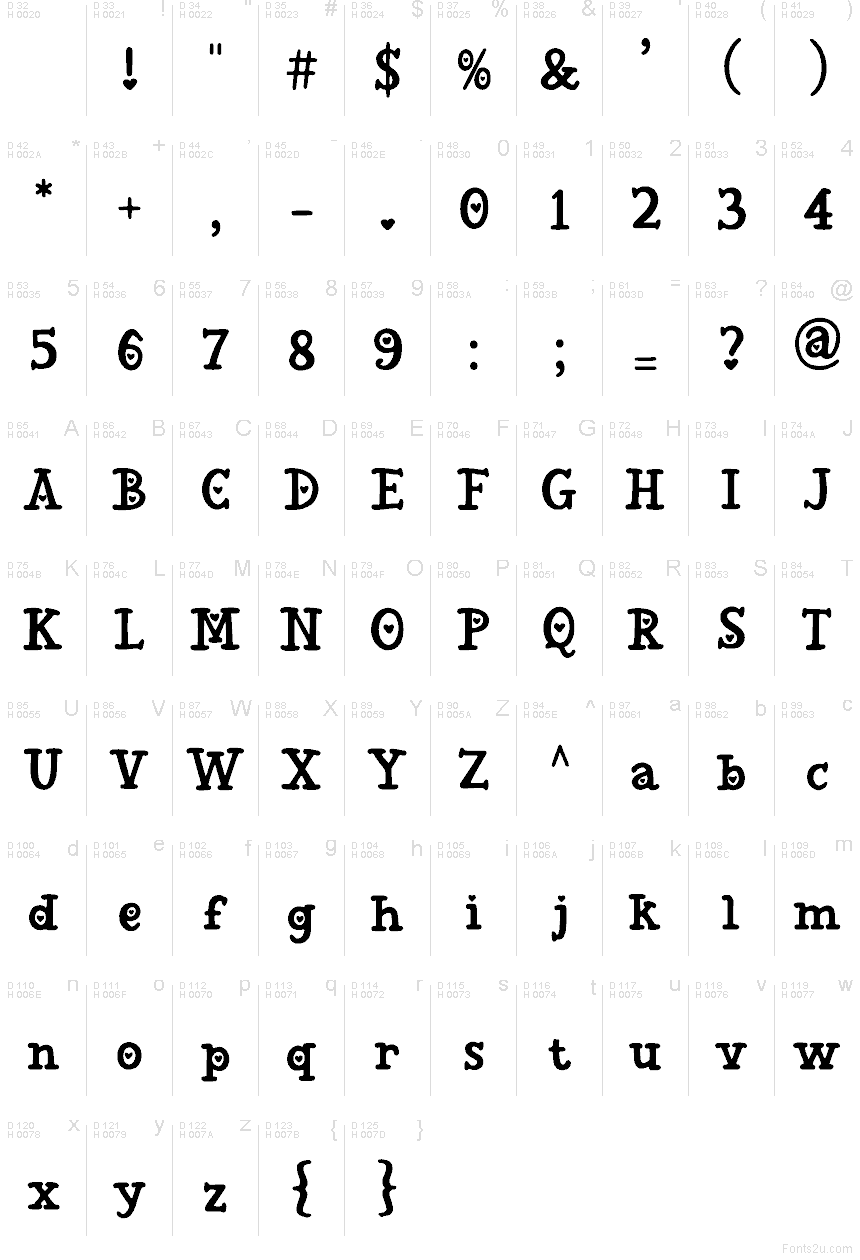
Marias Valentine
Marias Valentine font by David Holm is a free decorative valentine typeface that turns every word into a tiny love note. Chunky, rounded letterforms feel soft and friendly, while the playful heart cutouts tucked inside each character add a handmade, scrapbook charm. The strokes are bold enough to stay legible at smaller sizes, yet they really come to life when you scale them up on a page or screen.
Using Marias Valentine, you can give instant warmth to greeting cards, classroom projects, children’s party invitations, stickers, gift tags, and sweet social graphics. This free font has a cozy, slightly retro vibe that reads as cute and affectionate rather than overly formal. For a balanced layout, pair it with a simple, neutral sans serif for body text and let Marias Valentine handle the headlines and short phrases.